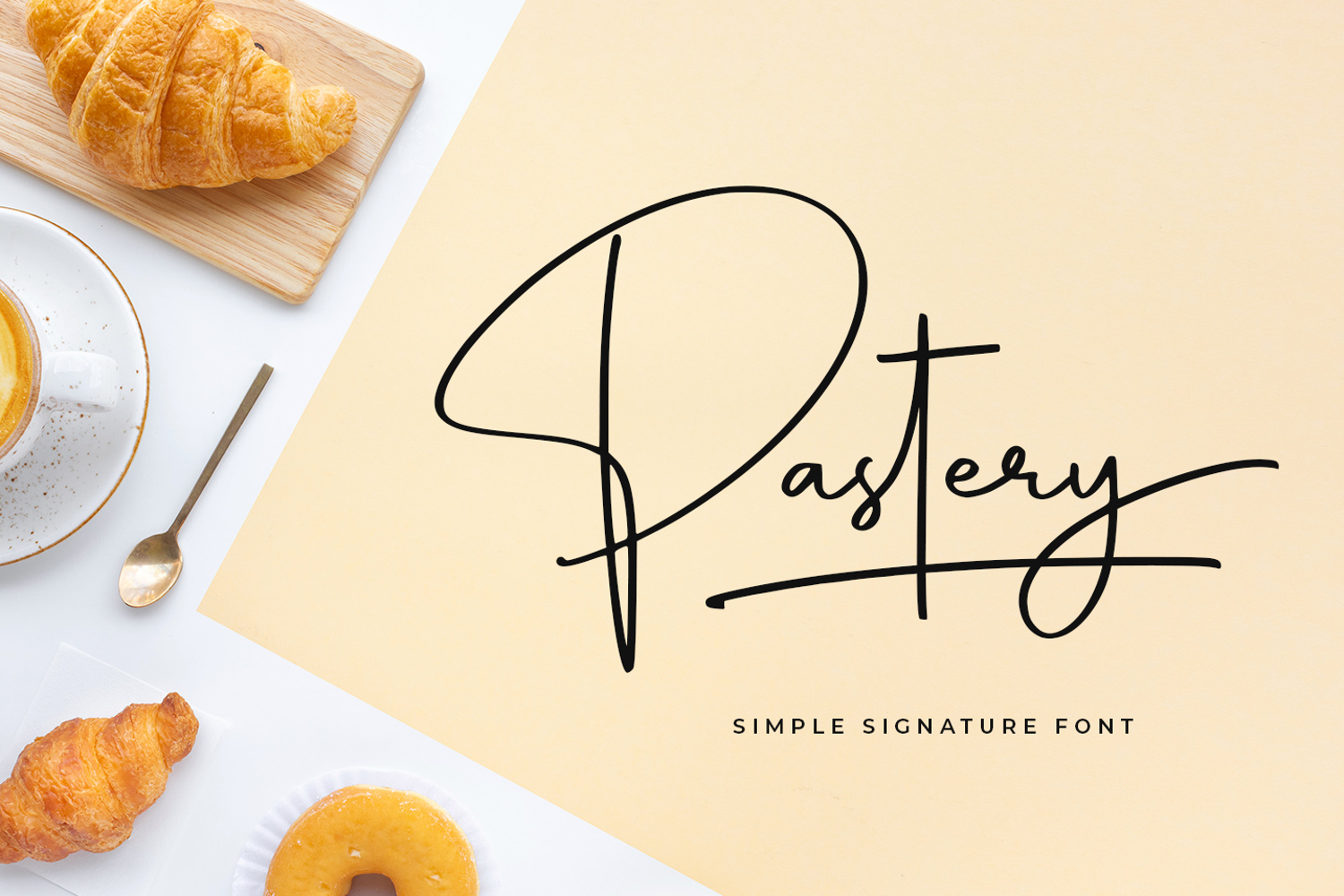
Pastery
introducing
PASTERY
- simple signature font-
PASTERY is natural signature font.
It is great for branding, quotes, logos, t-shirt designs, tote bag designs, cards, banners, social media, and more.
It is completed with 37 natural ligatures.
- Numeral
- Swash